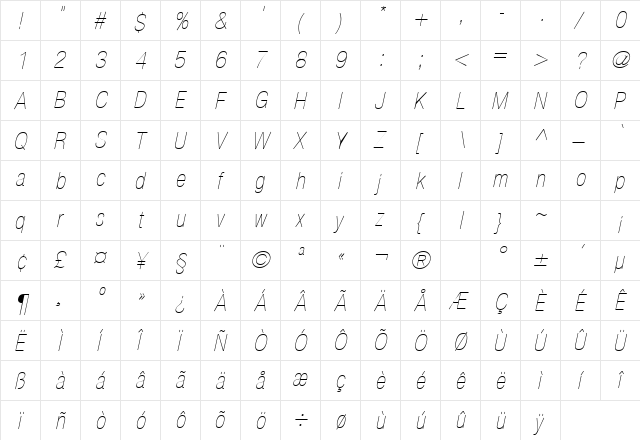
HeaveneticaCond2 ULtOblSH
Design Context for HeaveneticaCond2 Typeface
HeaveneticaCond2 is a composed and adaptable typeface that performs quietly and consistently across a wide range of design contexts. Its narrow stance lets it pack a punch even in space-constrained designs.